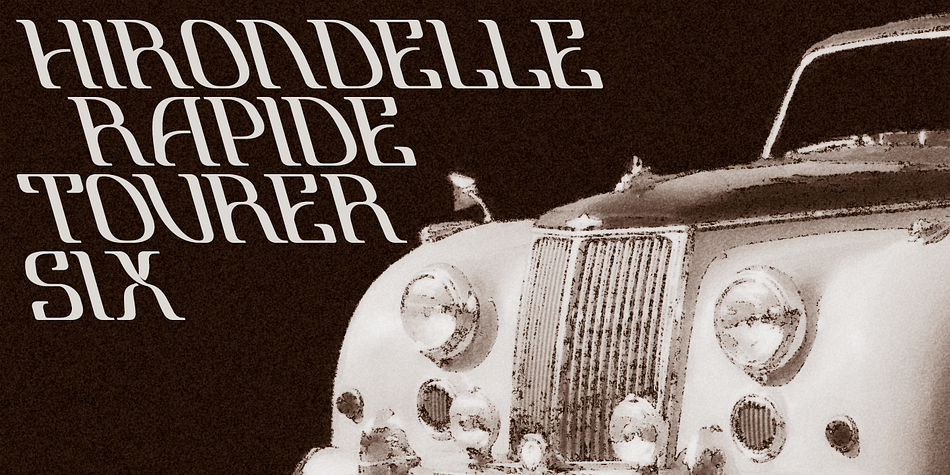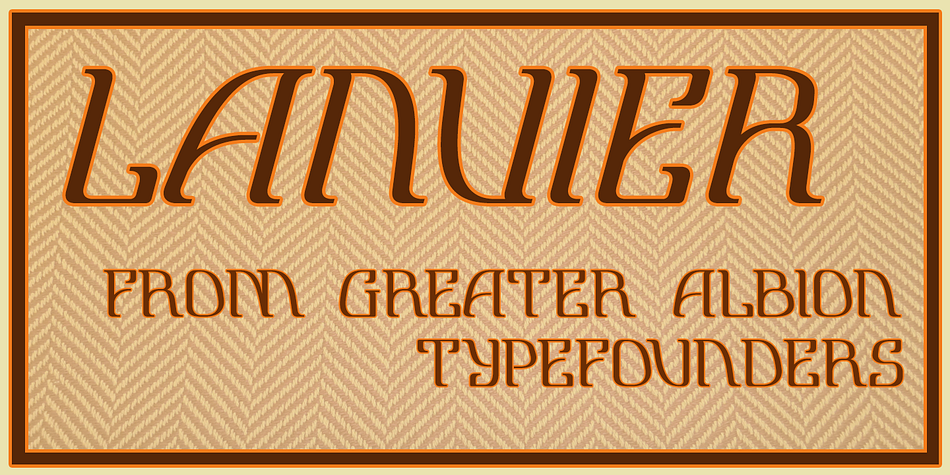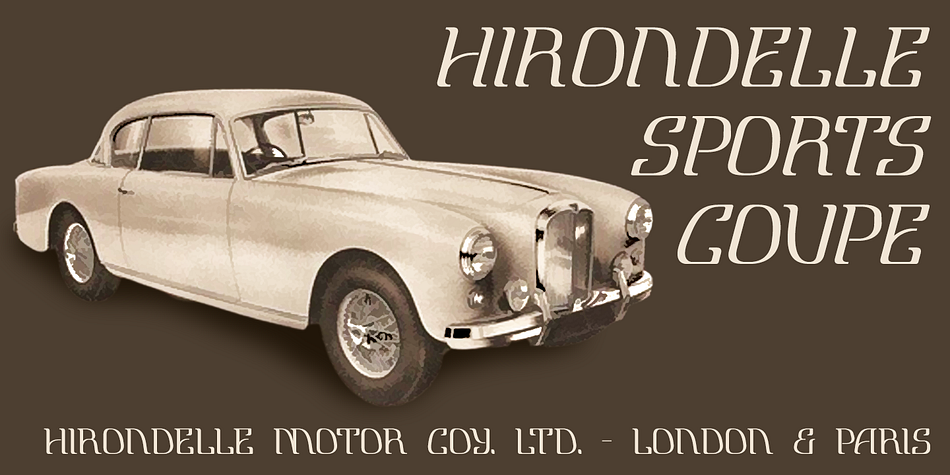
Lanvier is a display serif and art deco font family. This typeface has eight styles and was published by Greater Albion Typefounders.
Lanvier is an all capital display face, inspired by the thirties streamline era look. The family is offered in four style, Regular, Oblique, Double Oblique and Reverse Oblique, as well as two weights, Regular and bold. Bring the thirties back to life in all their chromium plated, streamlined and fast moving glory with the Lanvier family.